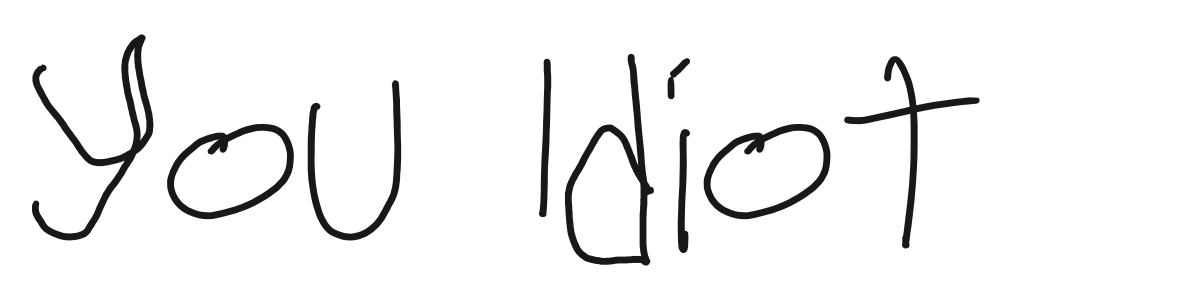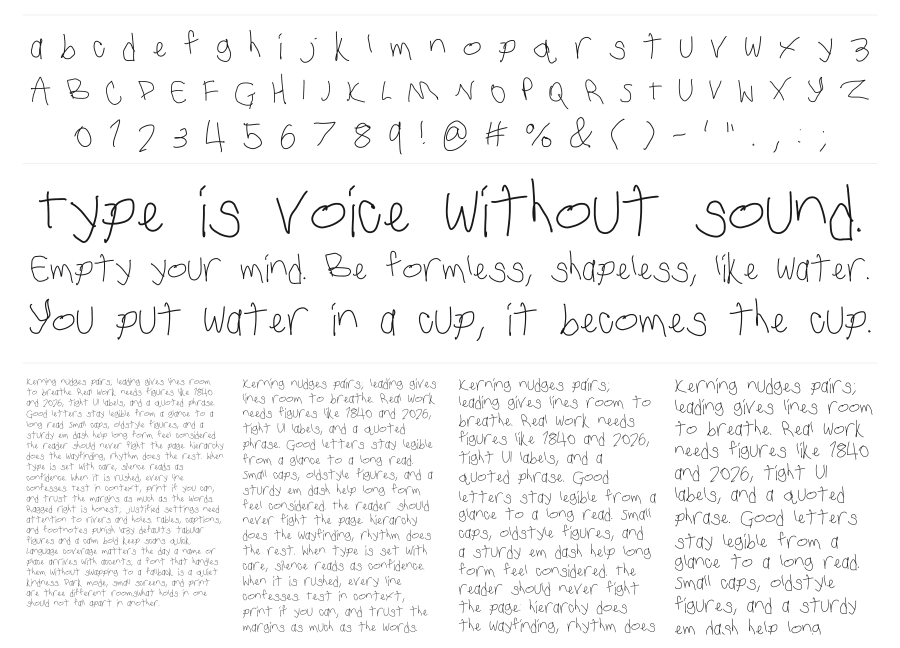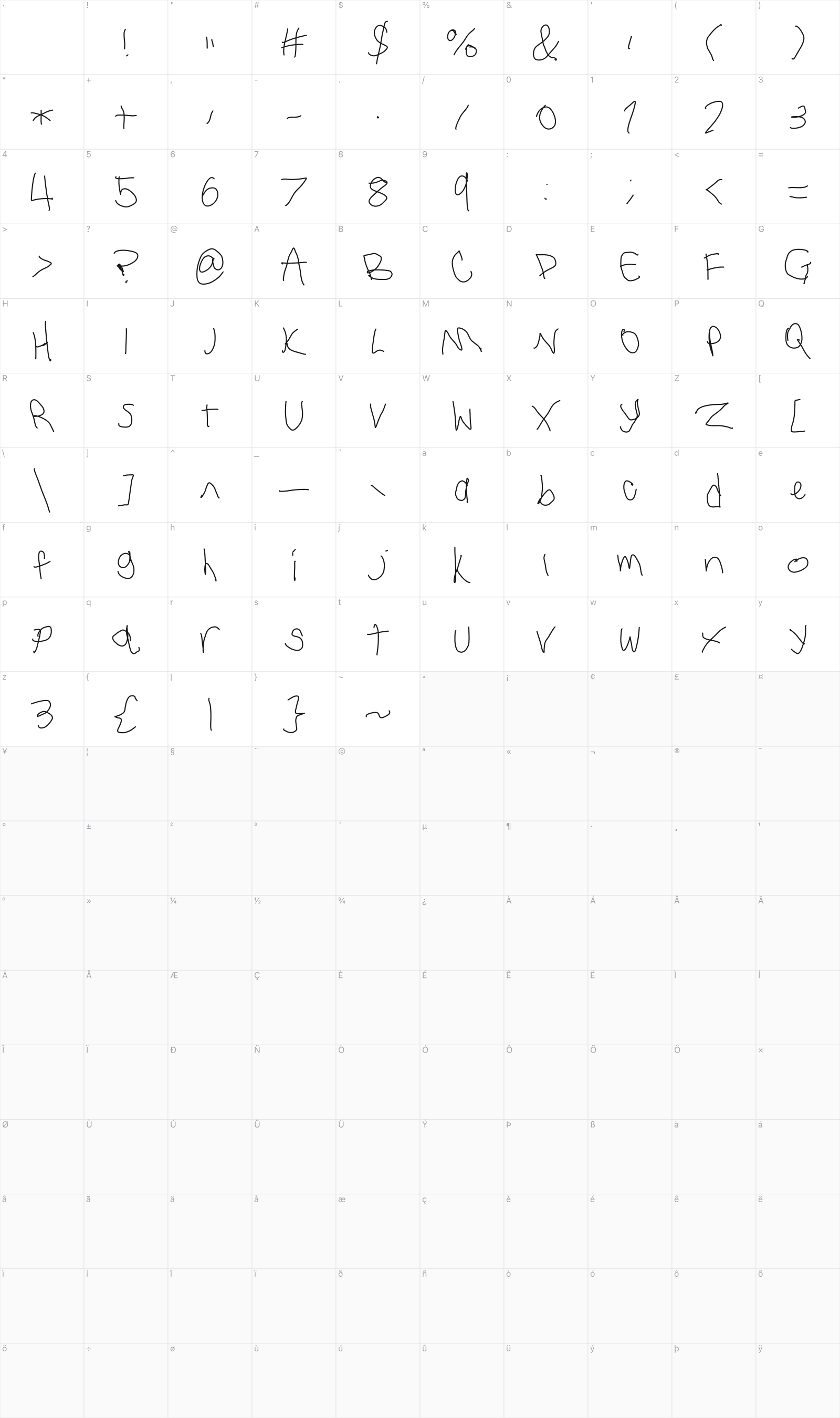
You Idiot
by Heitor Zagnoli
You Idiot is a razor-thin casual handwritten font by Heitor Zagnoli with the loose, unsteady quality of a quick note scrawled in a margin. The inconsistent baseline and erratic letter heights make it feel genuinely personal rather than artificially informal. Great for projects that need to feel human and a little unhinged.